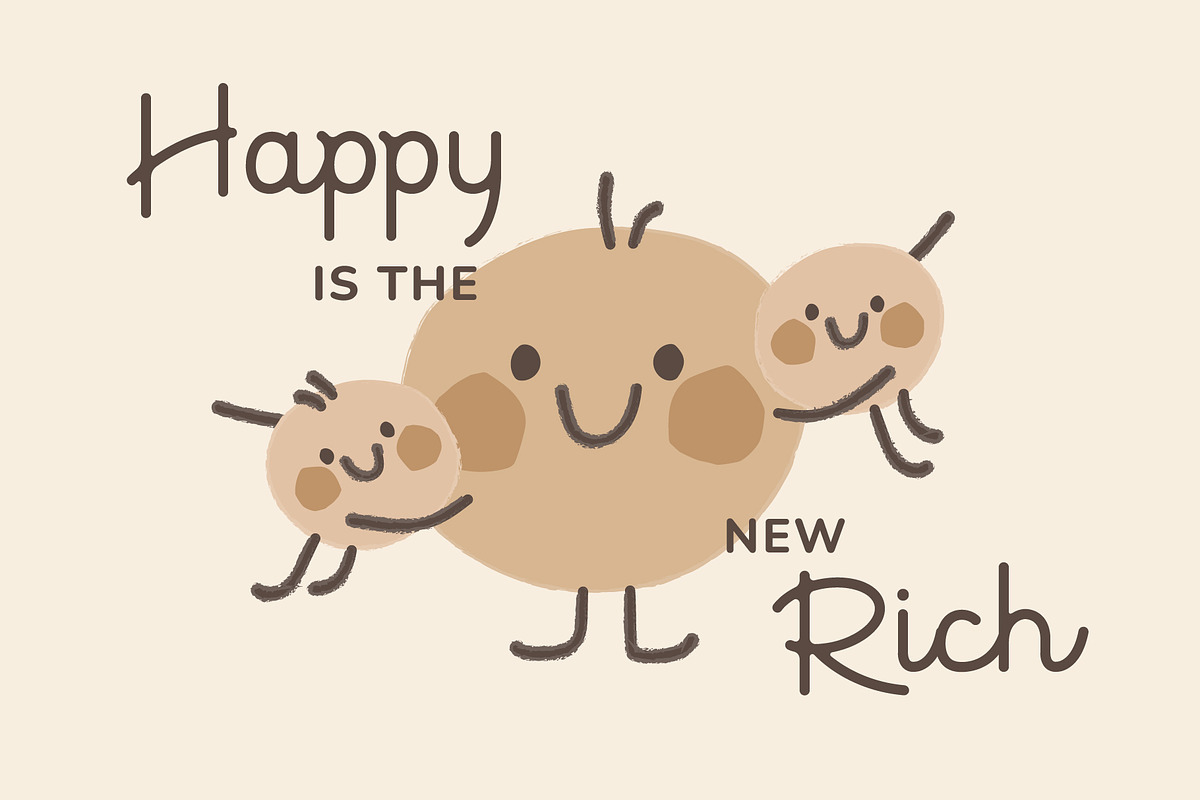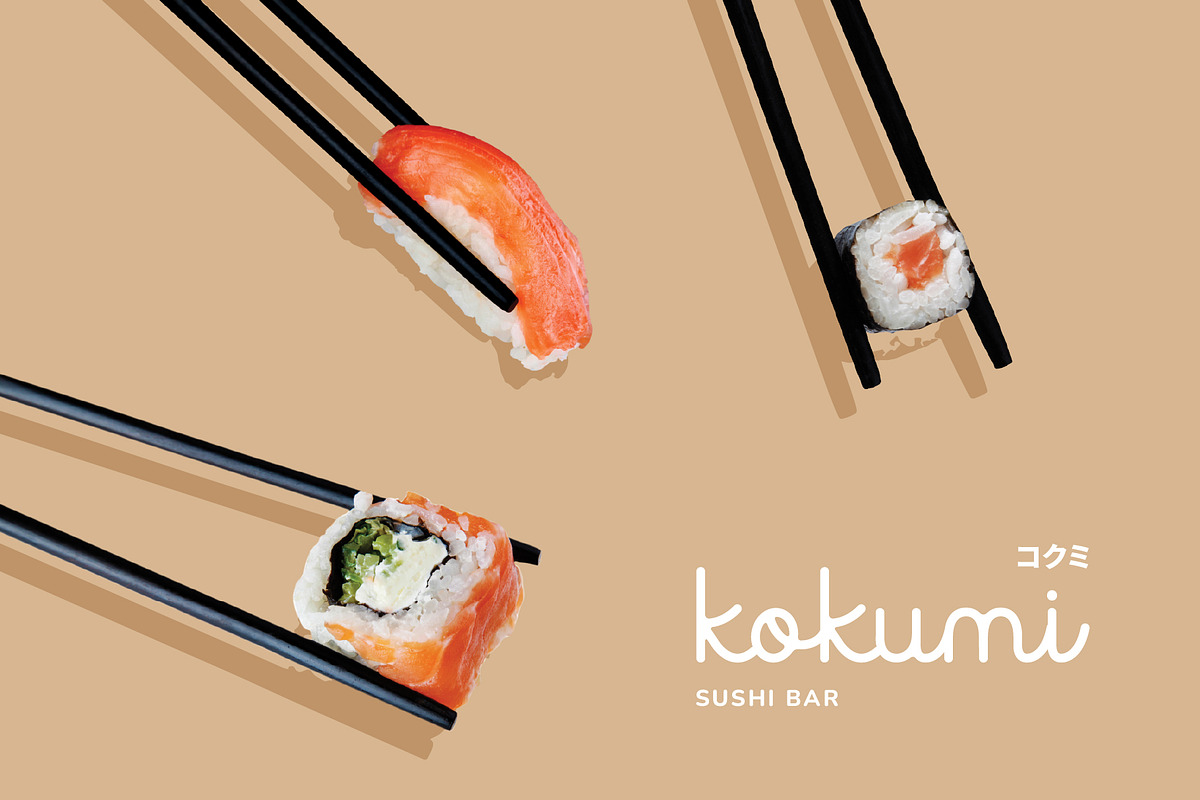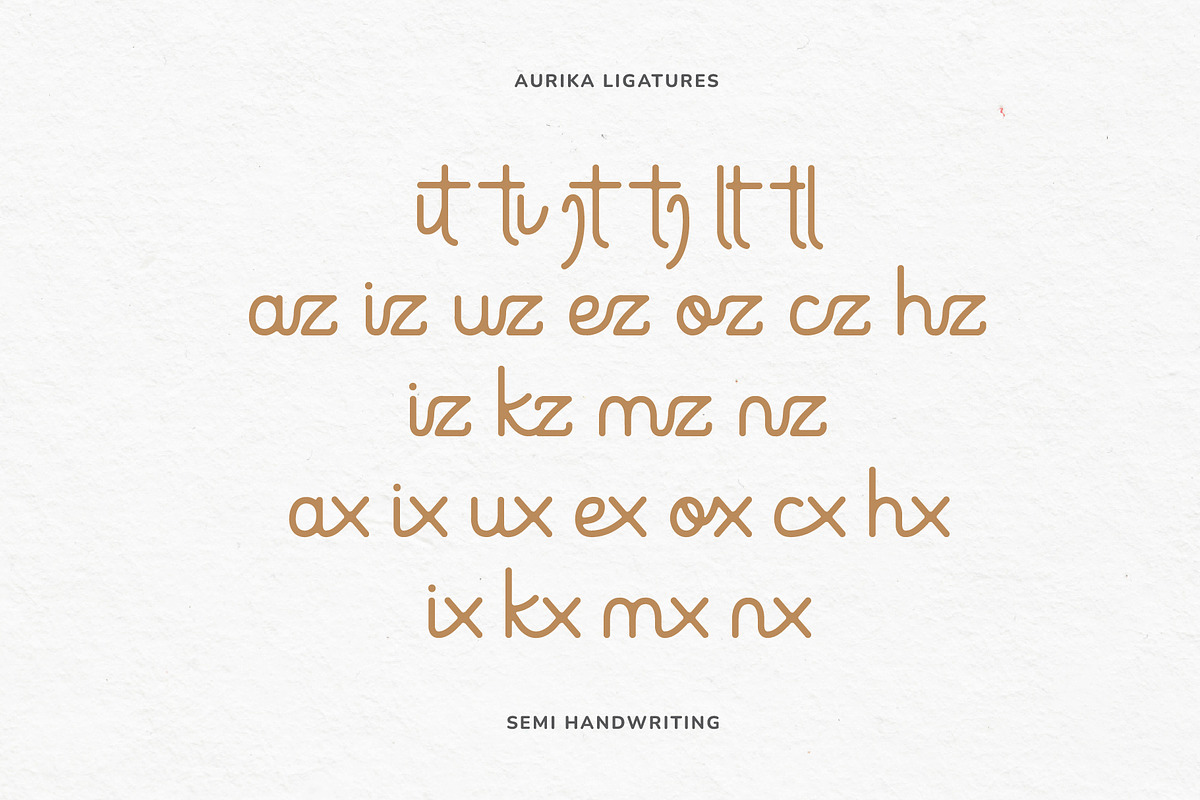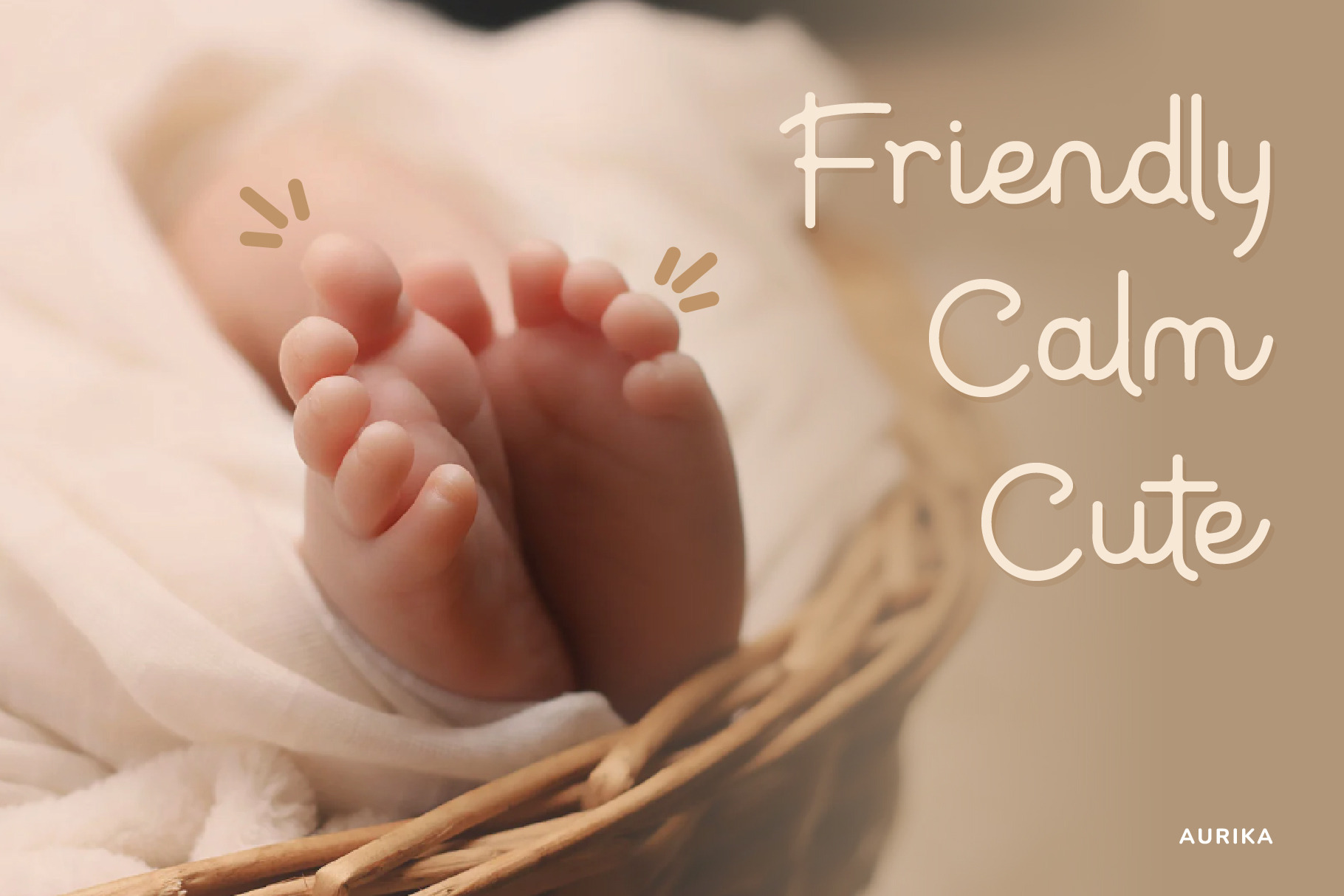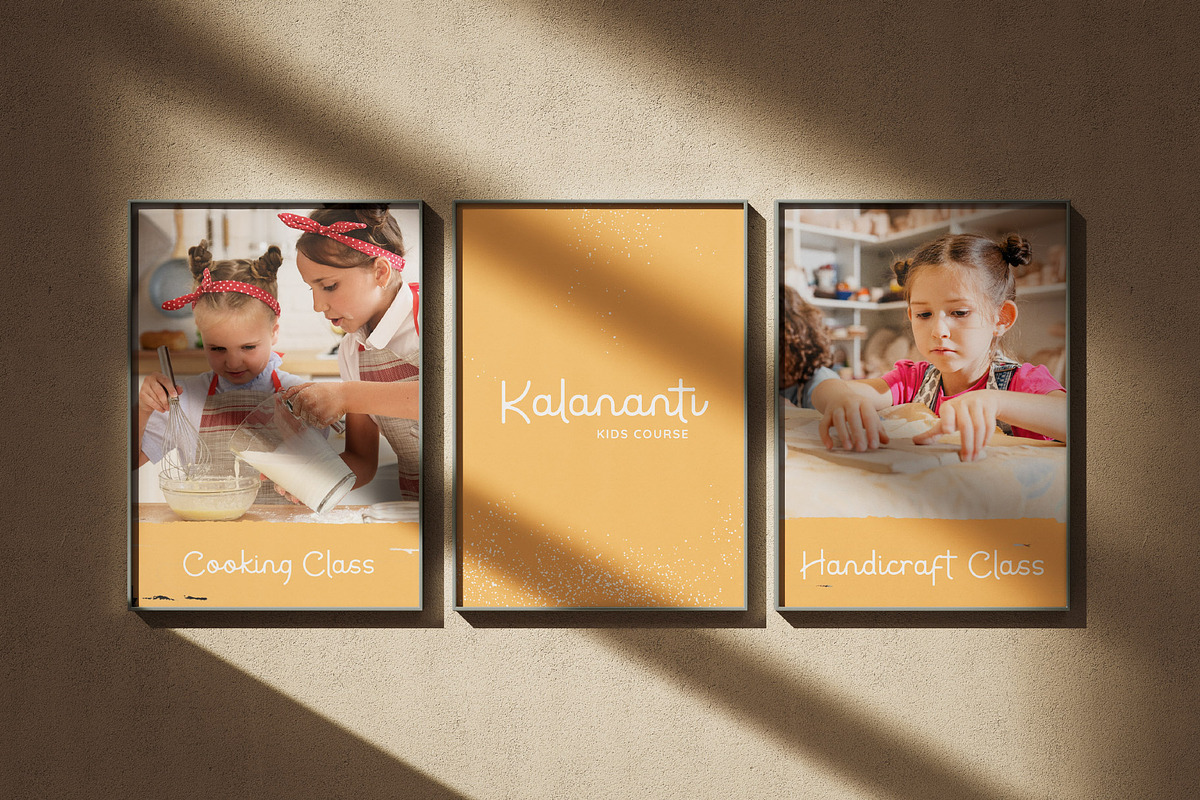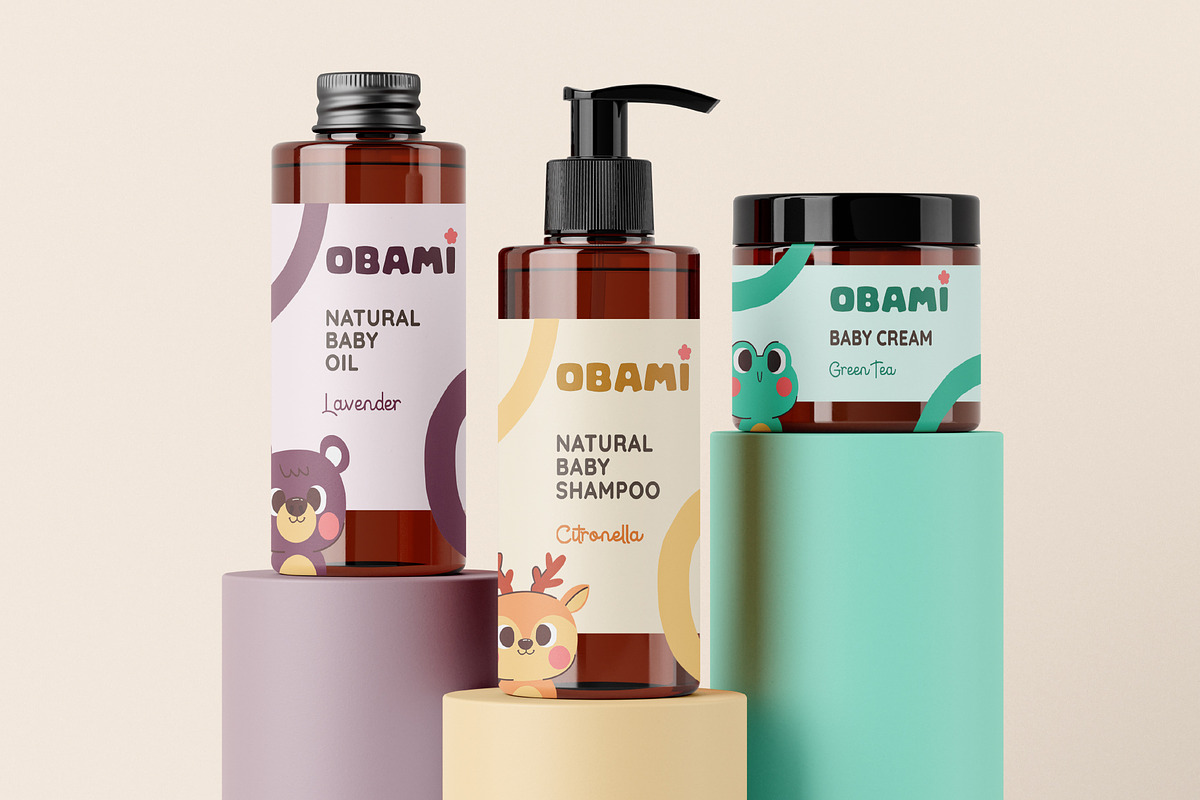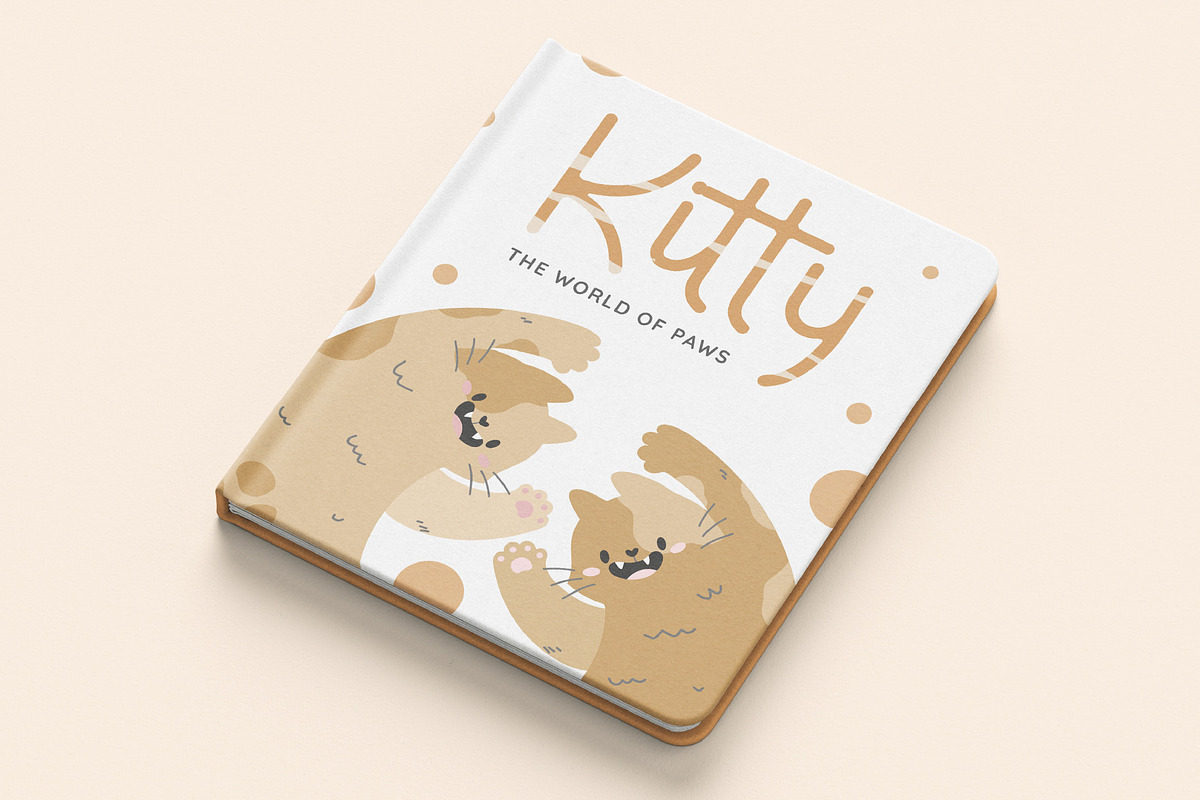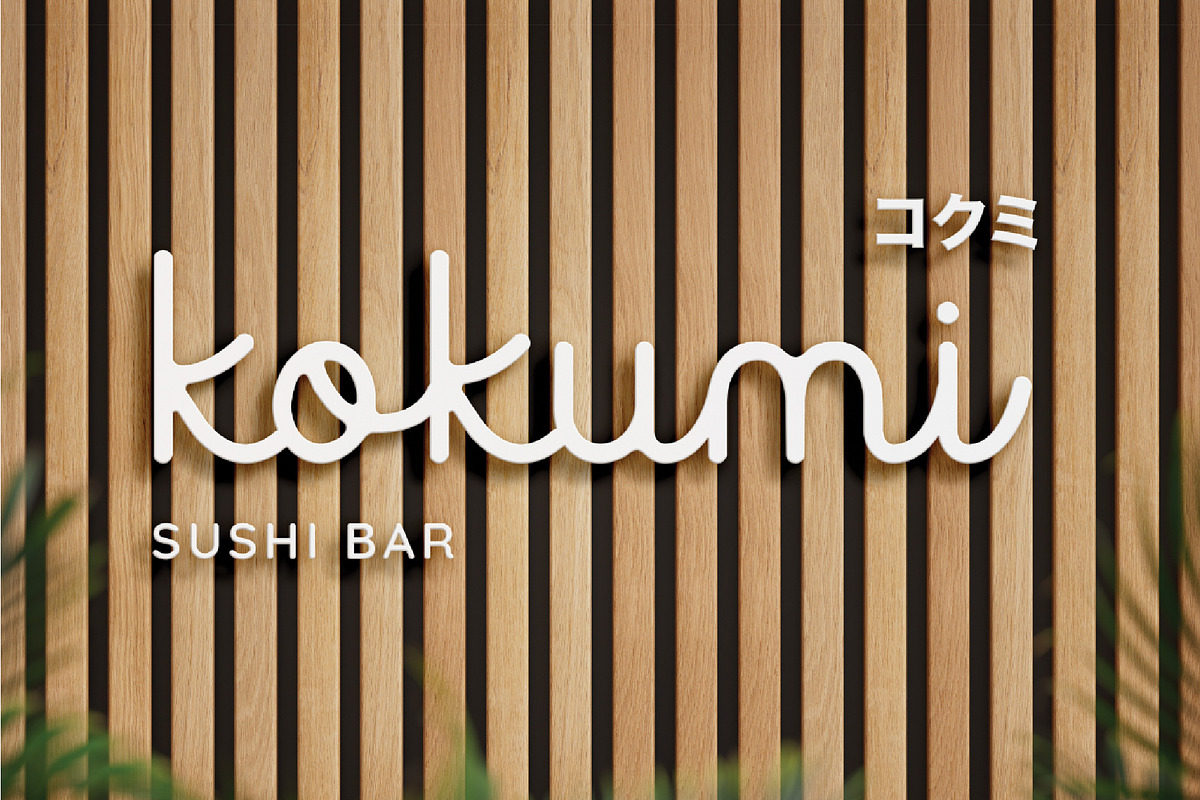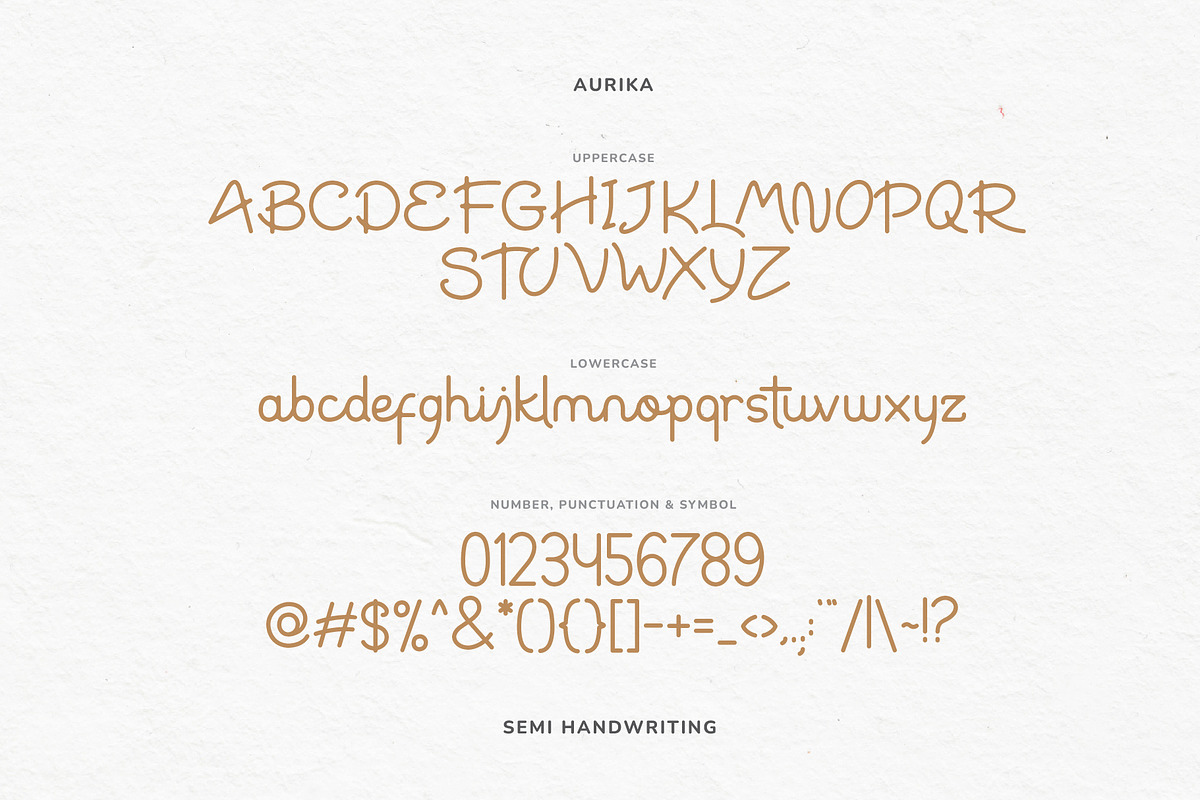
Aurika Playful Font
Aurika is a semi-handwritten font that combines a unique, charming style with exceptional readability. Its friendly, cute, and calming appearance makes it ideal for designs that want to feel approachable and warm. With both uppercase and lowercase characters, along with stylish ligatures, Aurika ensures a seamless flow in any project. Perfect for branding, packaging, promotional designs, and more, this versatile font brings personality and a personal touch to any creative endeavor.
With soft curves and a sprinkle of playfulness, Aurika brings warmth and charm to every word. Whether it’s for baby products, children’s brands, or fun-loving food & beverage packaging, Aurika makes your message feel friendly, approachable, and oh-so-cute. Its charm shines through with effortless readability, making it legible and lovable across all sorts of medium.
- Baby and Child Brand Identity & Packaging
- Friendly and Inviting Food & Beverage Branding
- Children Book Design
- Playful Event Poster Design
- Standard and Discretionary Ligatures